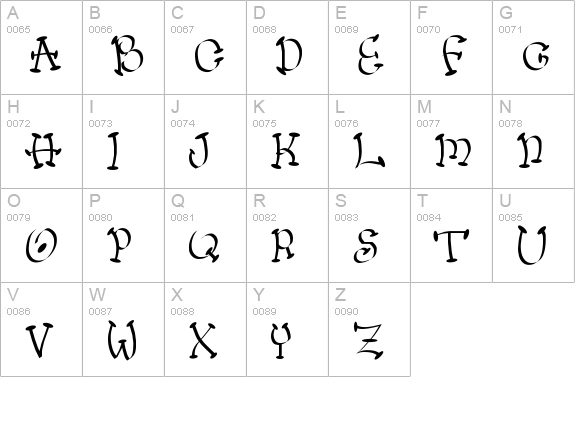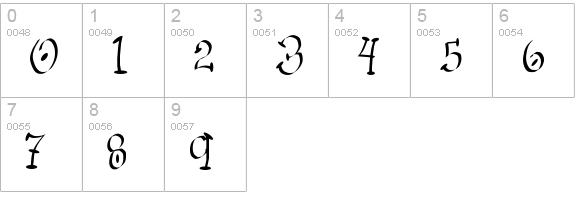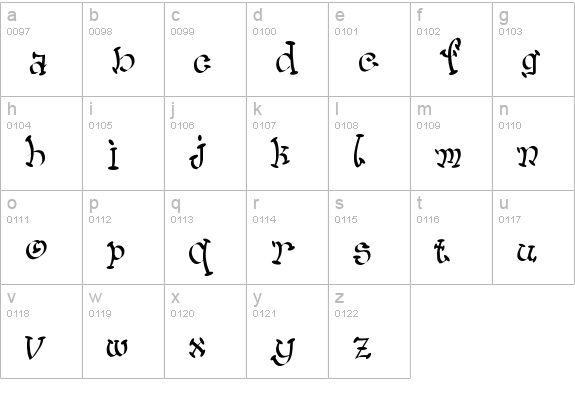
Wacko Font Details
Introducing Wacko, the fantastically quirky font that will add a playful touch to any design project! With its whimsical and offbeat letterforms, Wacko is perfect for creating eye-catching headlines, lively logos, and memorable branding materials. This font oozes with personality and is sure to bring a smile to anyone who encounters it. The best part? Wacko is available for free! That's right, you can easily download this delightful font without spending a dime. Simply head over to FontsMarket.com and get ready to unleash your creativity with this one-of-a-kind typeface. Wacko's uniqueness lies in its ability to combine a sense of fun with a touch of quirkiness. Each letter has been carefully crafted to stand out from the crowd, with unexpected curves and playful flourishes that add an element of surprise to your designs. Whether you're designing invitations for a birthday party, creating posters for a comedy show, or adding a touch of whimsy to a children's book, Wacko is the perfect choice. But don't let its playful nature fool you - Wacko is also highly legible and versatile. It ensures that your message gets across loud and clear, while still maintaining its distinctive charm. This font is a true crowd-pleaser, guaranteed to make a lasting impression on your audience. So why wait? Download Wacko today and let your creativity run wild! With its free availability at FontsMarket.com, there's no reason not to add this lively and unique font to your collection. Stand out from the crowd and inject a dose of fun into your designs with Wacko. Get ready to turn heads and bring a smile to everyone's face with this delightful typeface.